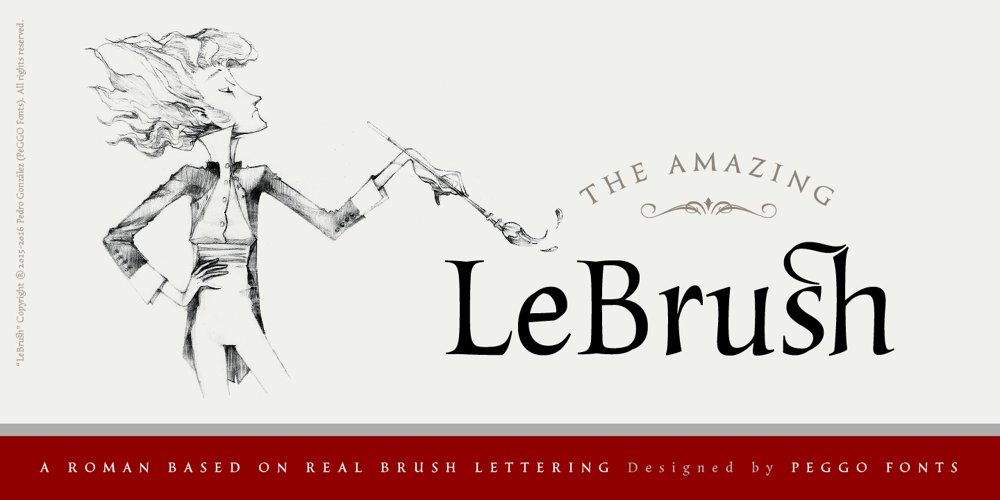
LeBrush Font Family was designed by Pedro Gonzalez Jorquera and published by PeGGO Fonts. LeBrush contains 14 styles and family package options. “LeBrush” is a contemporary Roman typeface based on real brush lettering, in 10 styles from Thin to ExtraDark, inspired on the classic Roman proportion of the “Capitalis Monumentalis” present into the Trajan Column and another Greek architectural structures. The “LeBrush classic” weight was specially developed to easily design ‘Movie titling’ graphics, cover books & magazines and posters. More skilled designers and pro-Users can even set the type, in a very smart way, in logotypes and labels as well, using its multiple advanced opentype options and extra ornamental sets. Lowercases allowed users to work in lecture size requirements.